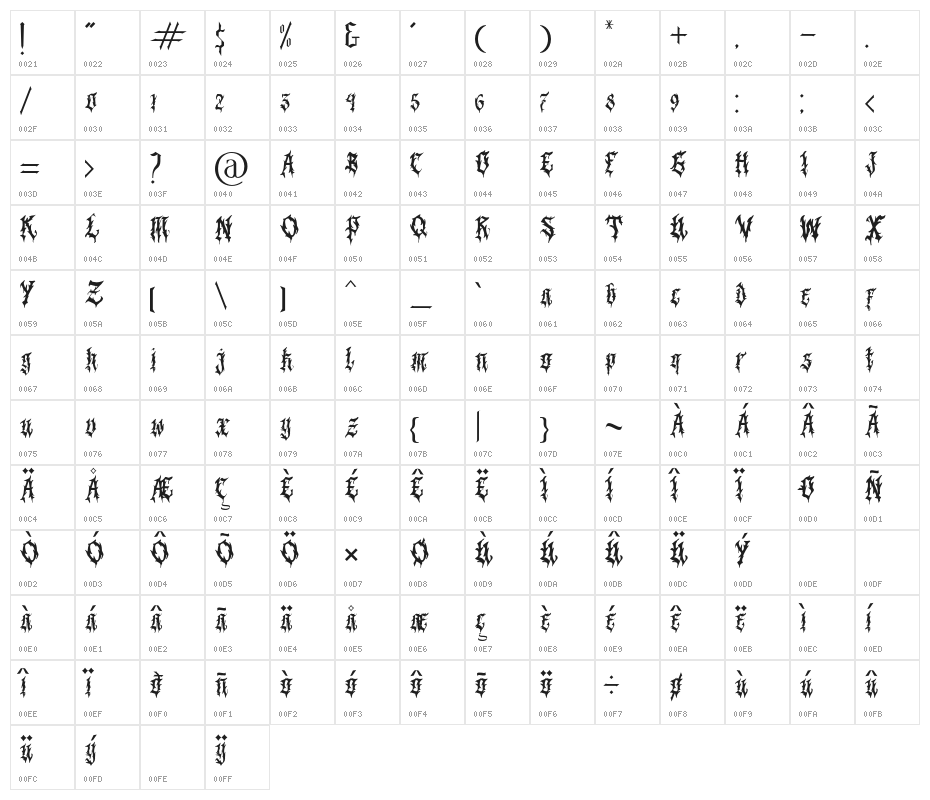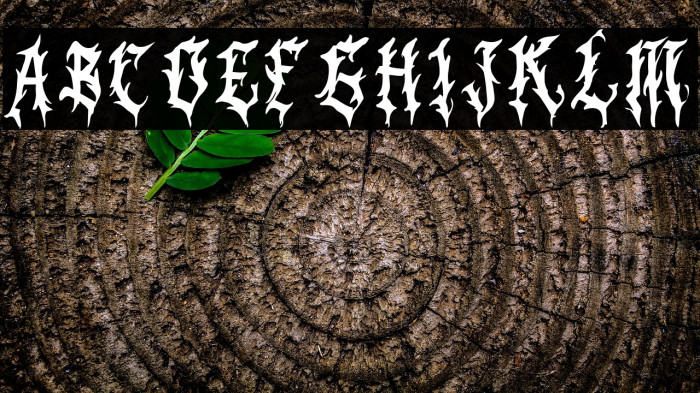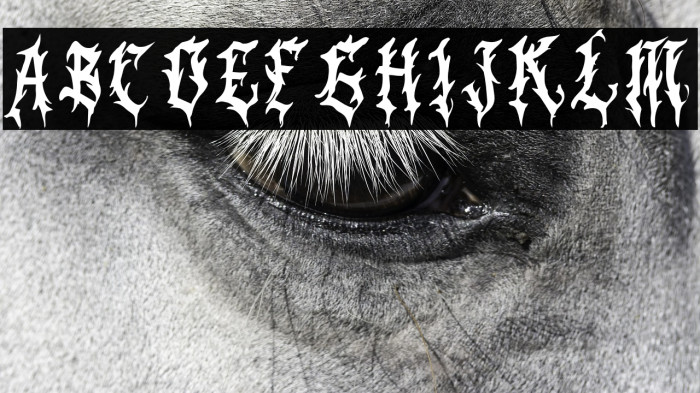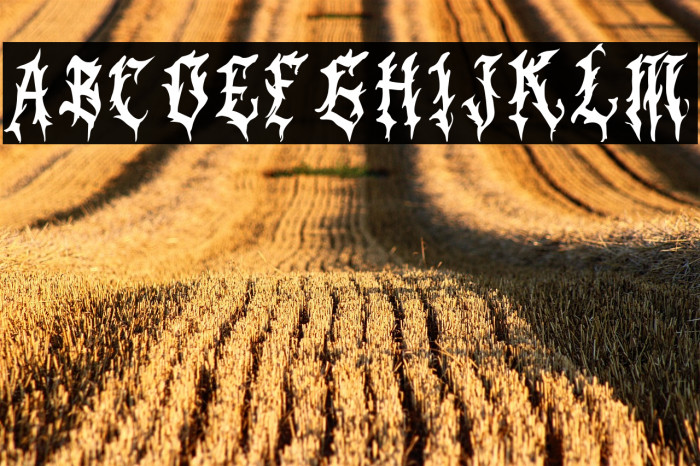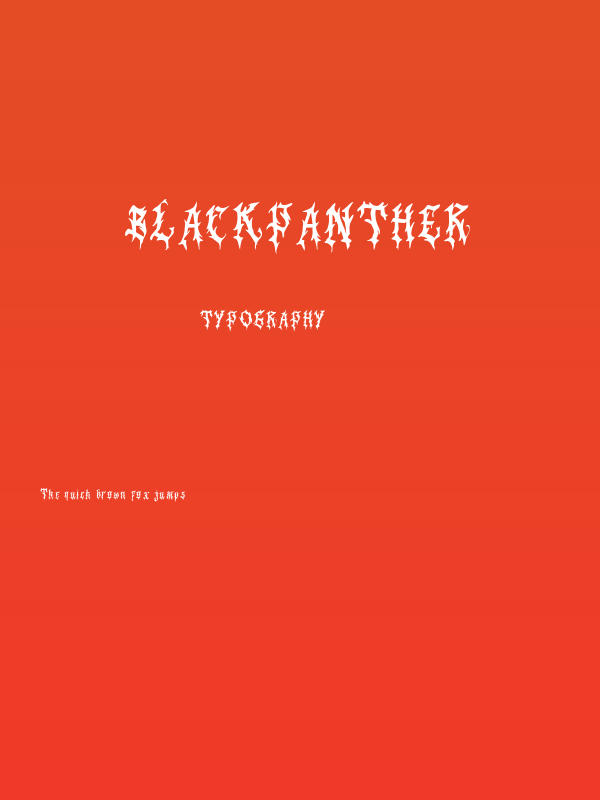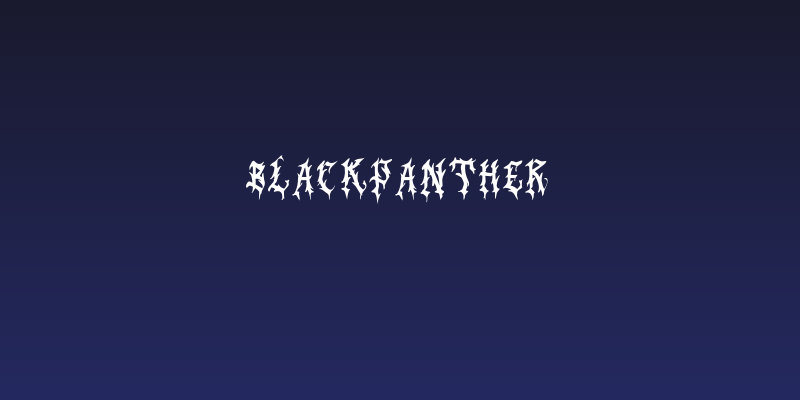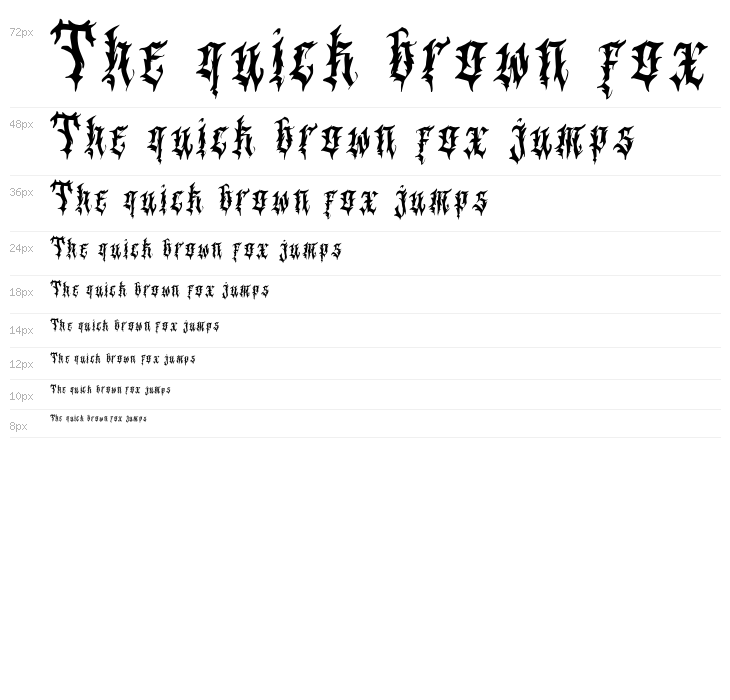
BlackPanther Font
BlackPanther Description
This font features a bold and aggressive design, characterized by sharp, angular edges and a gothic aesthetic. The letters are intricately designed with pointed serifs and a strong presence, making them stand out prominently. The uppercase and lowercase letters maintain a consistent style, with a dramatic flair that suggests a sense of power and intensity. The numerals and special characters follow the same stylistic approach, ensuring uniformity across the font. This font is ideal for projects that require a striking and memorable visual impact.
| Proposed Projects | Perfect for branding, album covers, posters, and any project needing a strong, memorable impact. |